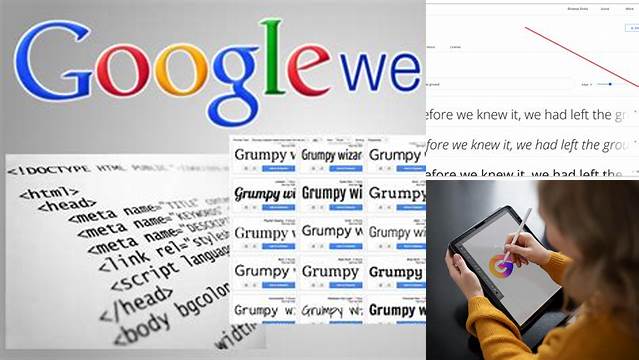
Link Google Fonts To HTML: A Beginner's Guide
This guide will walk you through the process of linking Google Fonts to your HTML, making it super easy to customize your website's typography. Guys, we'll cover everything from choosing the right fonts to implementing them correctly. Let's dive in!
1. Understanding Google Fonts and Why Use Them
So, what exactly are Google Fonts? Well, they're a massive, open-source library of fonts, totally free for you to use on your websites! This is awesome, right? It means you can choose from a huge variety of fonts β from classic serifs and clean sans-serifs to more playful and unique styles β without having to pay a dime. This is a major win for anyone looking to create a visually appealing website without breaking the bank. Imagine the possibilities: you can instantly change the entire feel and personality of your site just by swapping out the font. This is perfect for personal blogs, small business sites, or even larger projects. Google Fonts are served from Google's servers, which means they're fast and reliable. Your website won't slow down because of font loading issues, which is crucial for a good user experience. Plus, using a service like this can reduce your website's file size, making it load even faster. It's all about making your site look good and perform well. Think about the impact of a well-chosen font on user engagement. A clear and readable font keeps people reading. A stylish font can make a website feel more professional, trustworthy, or creative, depending on the vibe you're going for. This is especially important because the visual aspect of your website is usually the first impression you'll make. First impressions matter a lot, especially online! The ease of use is another big plus. Integrating Google Fonts into your HTML is a piece of cake β we'll get to the specifics in the next sections. This means you can focus on other things like writing great content, designing a user-friendly layout, or promoting your site. You don't need to be a coding expert to use these fonts, which is perfect if you're just starting out or don't have a lot of technical experience. The library is constantly updated, too, so youβre sure to find something that fits your needs. Google is always adding new fonts and improving the service. Using Google Fonts is an investment in the visual appeal and usability of your website. It's a simple yet powerful way to elevate your online presence.
2. Choosing the Right Fonts for Your Website
Alright, choosing the right fonts is like picking the perfect outfit for your website β it's all about finding the right fit! Before you jump in and start linking fonts, you need to think about your website's overall look and feel. Consider your brand identity β is it formal, playful, modern, or traditional? This will guide you in selecting fonts that match your brand personality. Think about the fonts in the context of your content. If you have a lot of text, you'll need a font that's easy to read, like a clean sans-serif or a classic serif. For headings, you can experiment with bolder or more decorative fonts to grab attention. The combination of font choices is essential! Pair a font for headings with a font for body text. If you want a modern vibe, you might pick a bold sans-serif for the headings and a clean, readable sans-serif for the body. A more traditional look might involve a serif heading font with a serif body font. Don't forget that less is often more! Sticking to one or two font families is usually best. Too many fonts can make your website look cluttered and unprofessional. Consistency is vital. When choosing Google Fonts, you can filter by different categories, such as serif, sans-serif, display, handwriting, and monospace. This makes it easy to find fonts that suit your style. Pay attention to readability! This is super important, especially for body text. Choose fonts with a good x-height (the height of the lowercase letters) and clear letterforms. Consider the different weights and styles available for each font family. This is like giving yourself more design tools. Bold, italic, and different weights (like light, regular, and bold) can help you emphasize specific text and create visual hierarchy. You can also check out font pairing guides. There are tons of resources available online that suggest great font combinations. These guides often highlight fonts that work well together, saving you time and effort. Test your font choices on different devices and screen sizes. Make sure your fonts look good on desktops, tablets, and smartphones. This will ensure a consistent user experience across all devices. Preview your fonts. Most font websites provide a preview tool. This is a great way to see how the fonts look with your website's content. Remember that the goal is to choose fonts that not only look great but also make your content easy to read and understand.
3. Step-by-Step Guide to Linking Google Fonts in HTML
Here's how to link Google Fonts to your HTML β it's easier than you might think! First, head over to the Google Fonts website (fonts.google.com). Browse the collection and choose the fonts you want to use. You can filter by different categories and styles to make your search easier. Once you've found a font you like, click on it to see its details. You'll see different font weights and styles available (like regular, bold, italic, etc.). Select the ones you want to use by clicking the